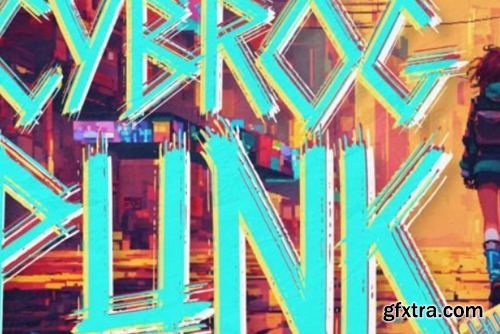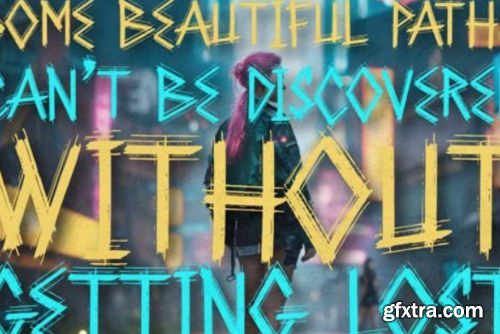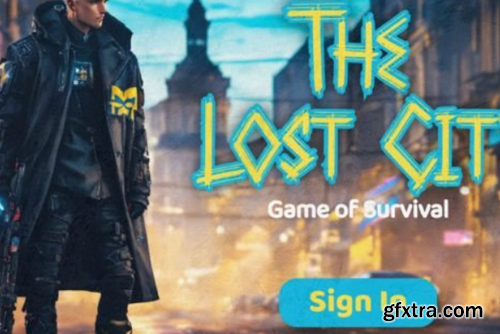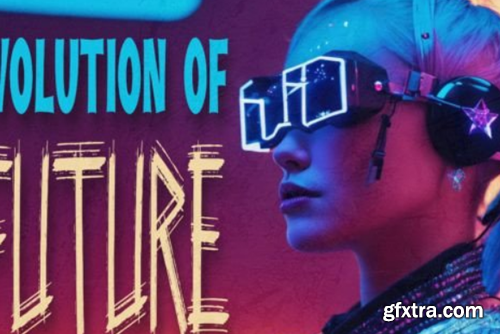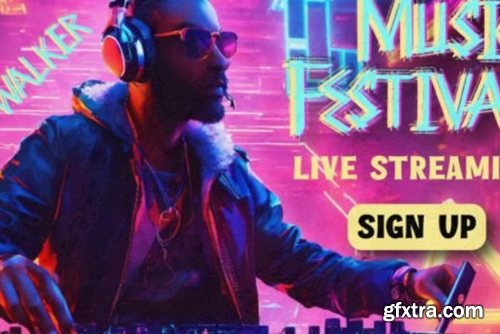
Cybrogpunk Font
Cybrogpunk is a loud and proud display font that boldly asserts its futuristic aesthetic. With edgy letterforms and a cyberpunk-inspired design, it captures the essence of rebellion and innovation. Ideal for projects demanding a distinctive and bold typeface, Cybrogpunk adds a rebellious and avant-garde touch to your designs.